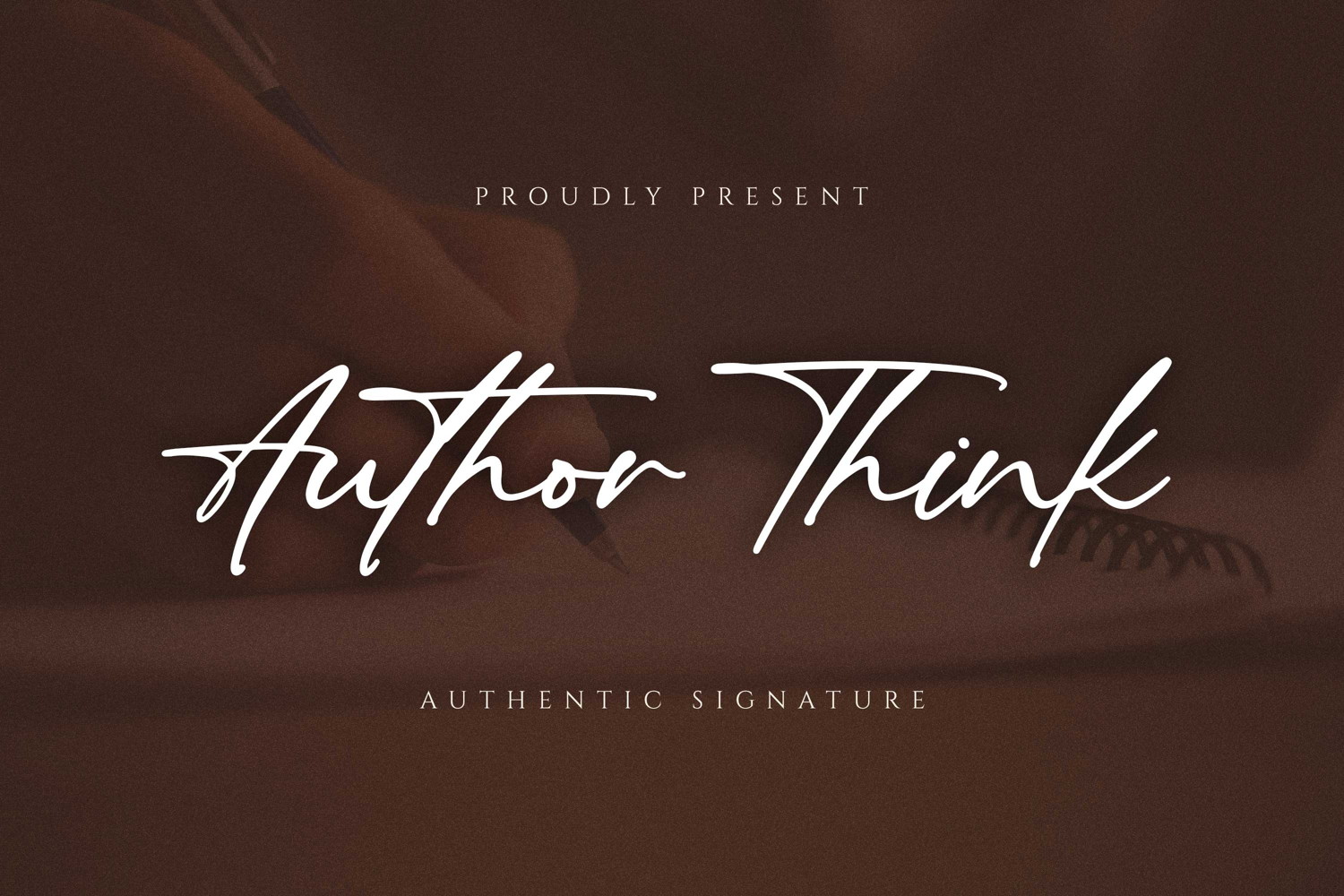
Author Think - Authentic Signature Script
Introducing Author Think – Authentic Signature Script is a Quality script that is written casually and quickly. Letters are made with Sign on paper. Then scanned and carefully drawn into vector format.Author Think is perfect for homeware designs,branding projects, Logo, design, Quotes, Product packaging, Photography, Watermark